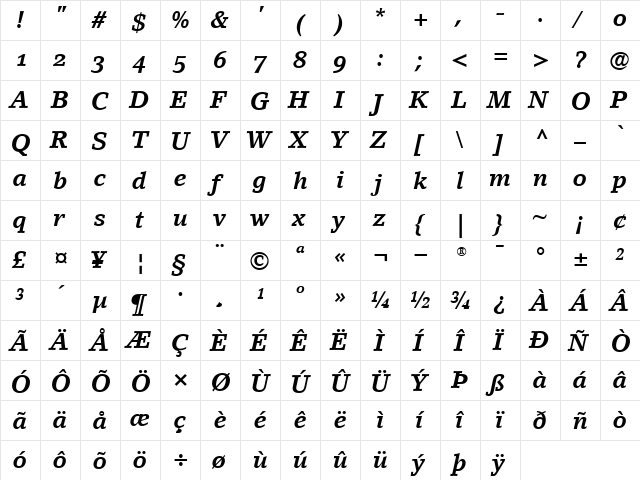
LinoLetterOldstyleFigures BoldItalic Font Preview
Design Context for LinoLetterOldstyleFigures Typeface
LinoLetterOldstyleFigures brings classic typographic sensibility to the table — its serifs and measured letterforms reflect centuries of print heritage. Its italic angle brings a sense of urgency and motion to the letterforms. Its bold stroke weight gives it real presence on the page.